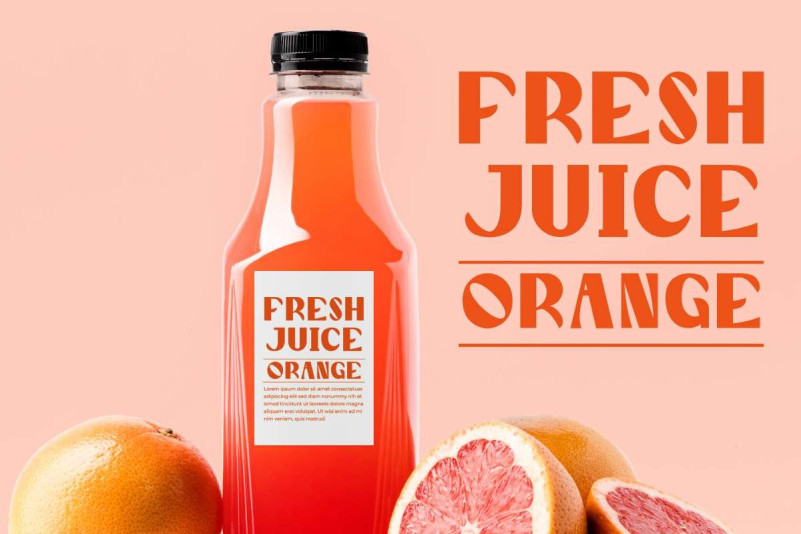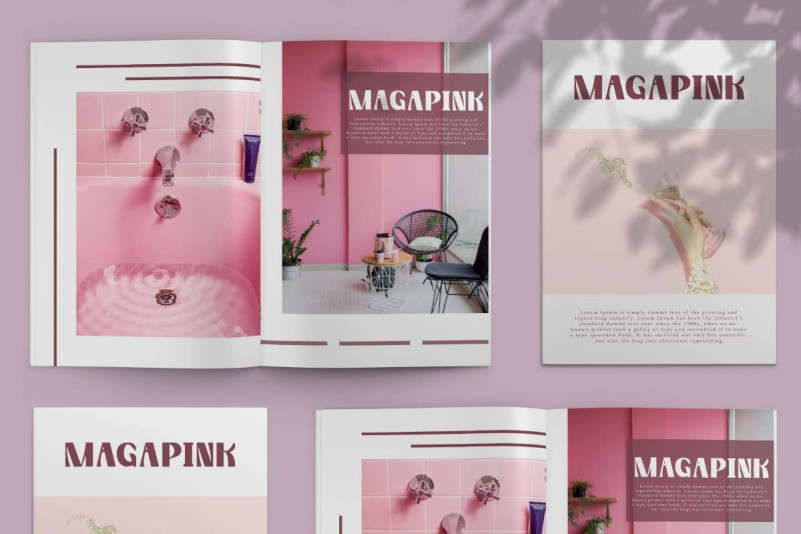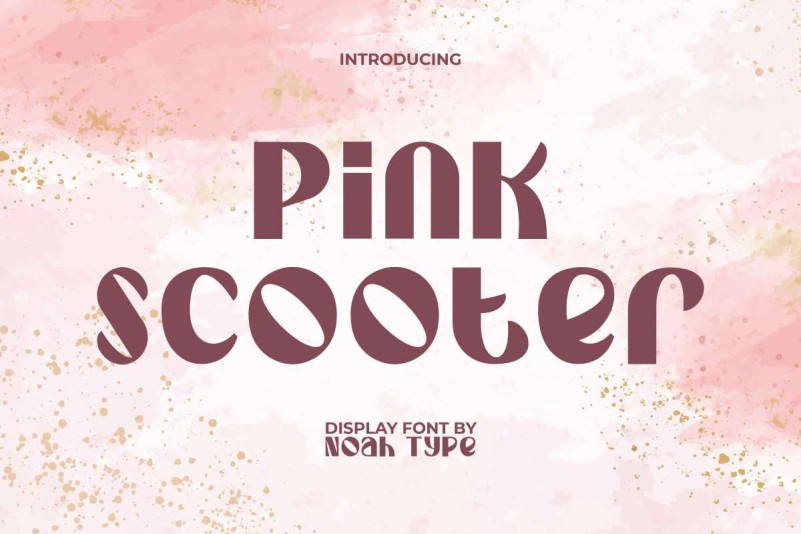
Pink Scooter Font
Pink Scooter Font is a modern and stylish display font, created by NoahType. This font has a strong look with unique lines that will make you want to use it in a variety of designs, such as business card, catalog, cover, custom design, greeting card, label, poster, quote, web, and more!
Pink Scooter Font includes the basic character set of Uppercase and Lowercase Basic Characters, Numerals and Punctuation. This font has an attractive appearance that will make you believe it is the perfect choice for many industries, such as advertisement, artist, café, cosmetic, event organizer, fashion, homeware, restaurant, printing, publishing, etc.